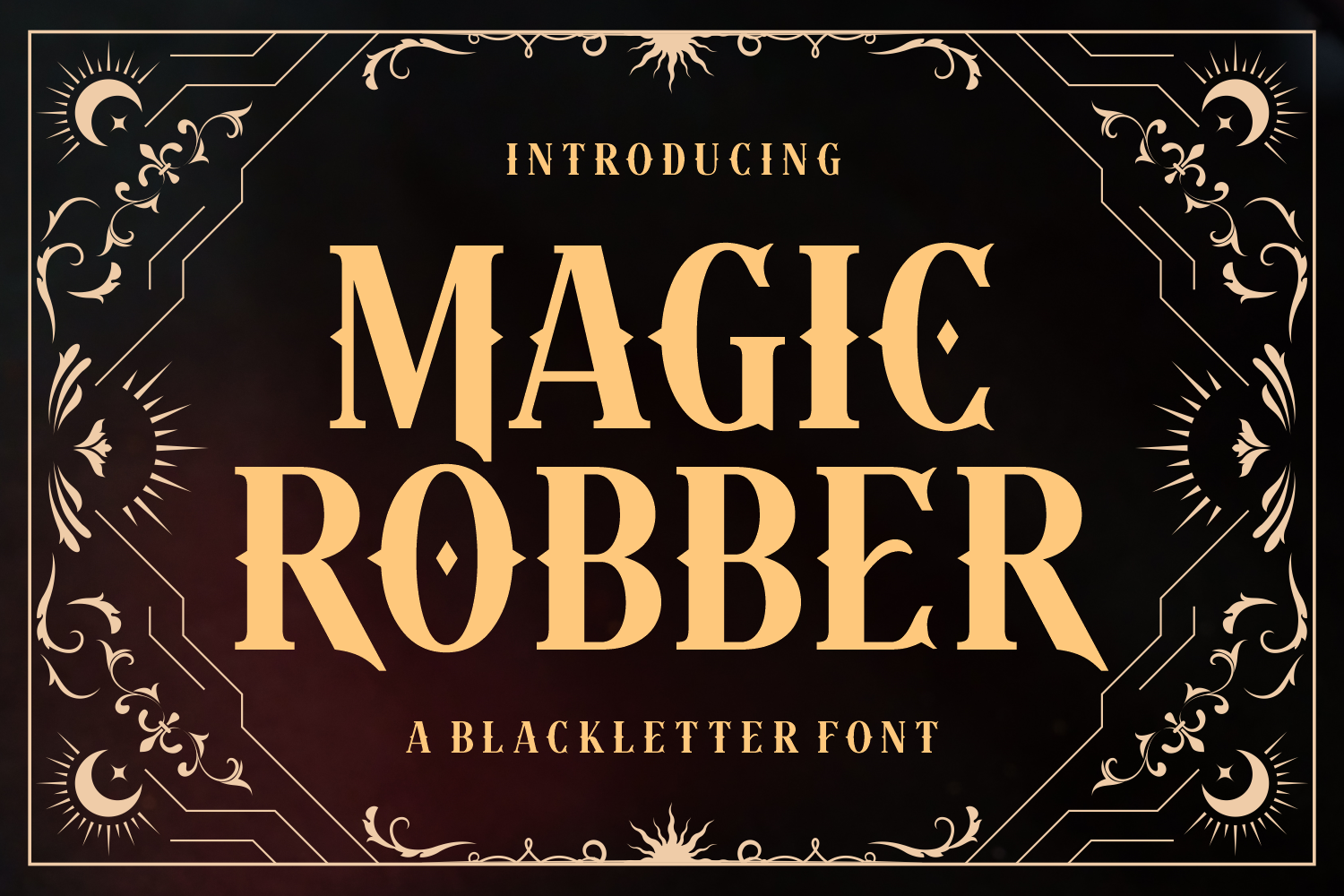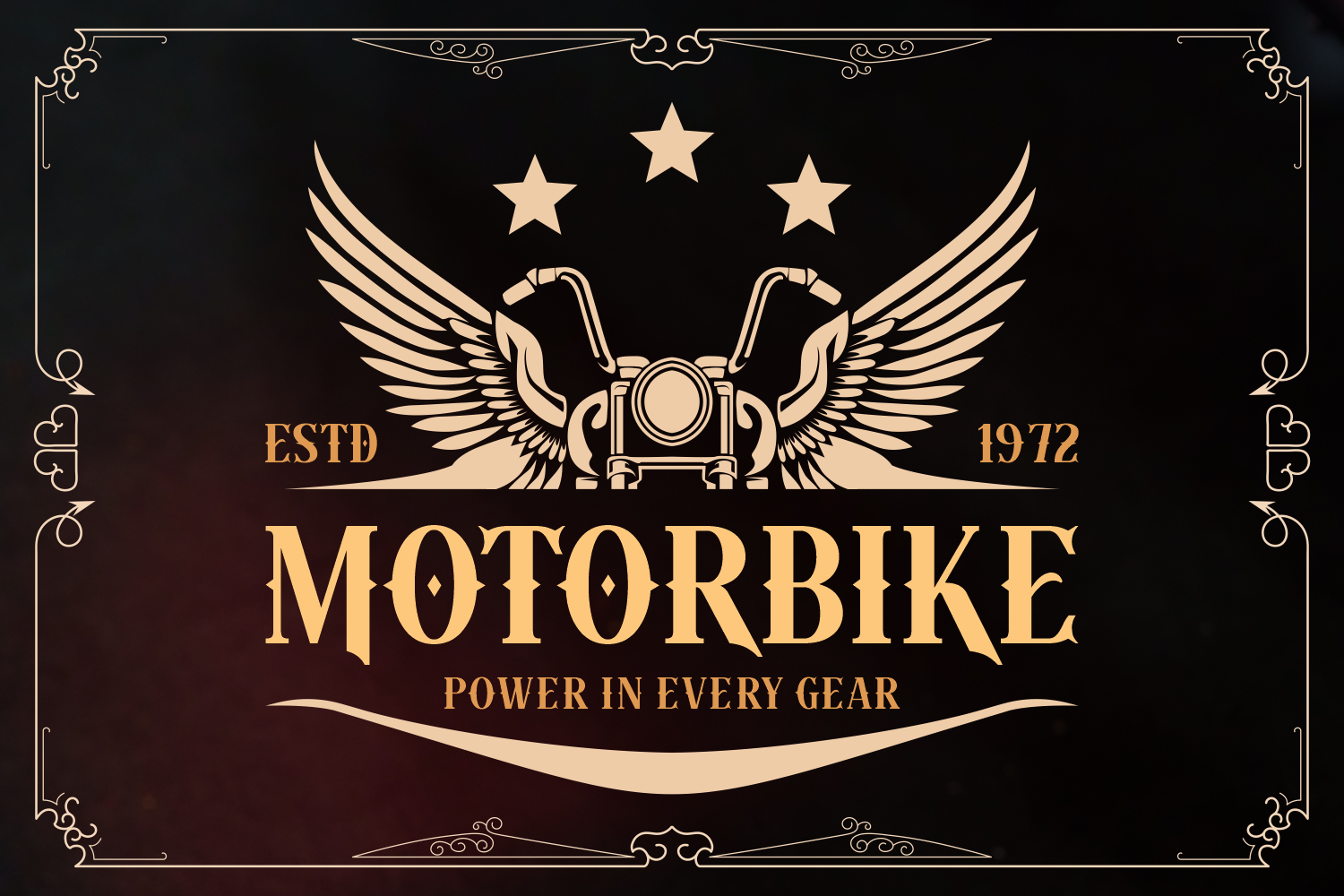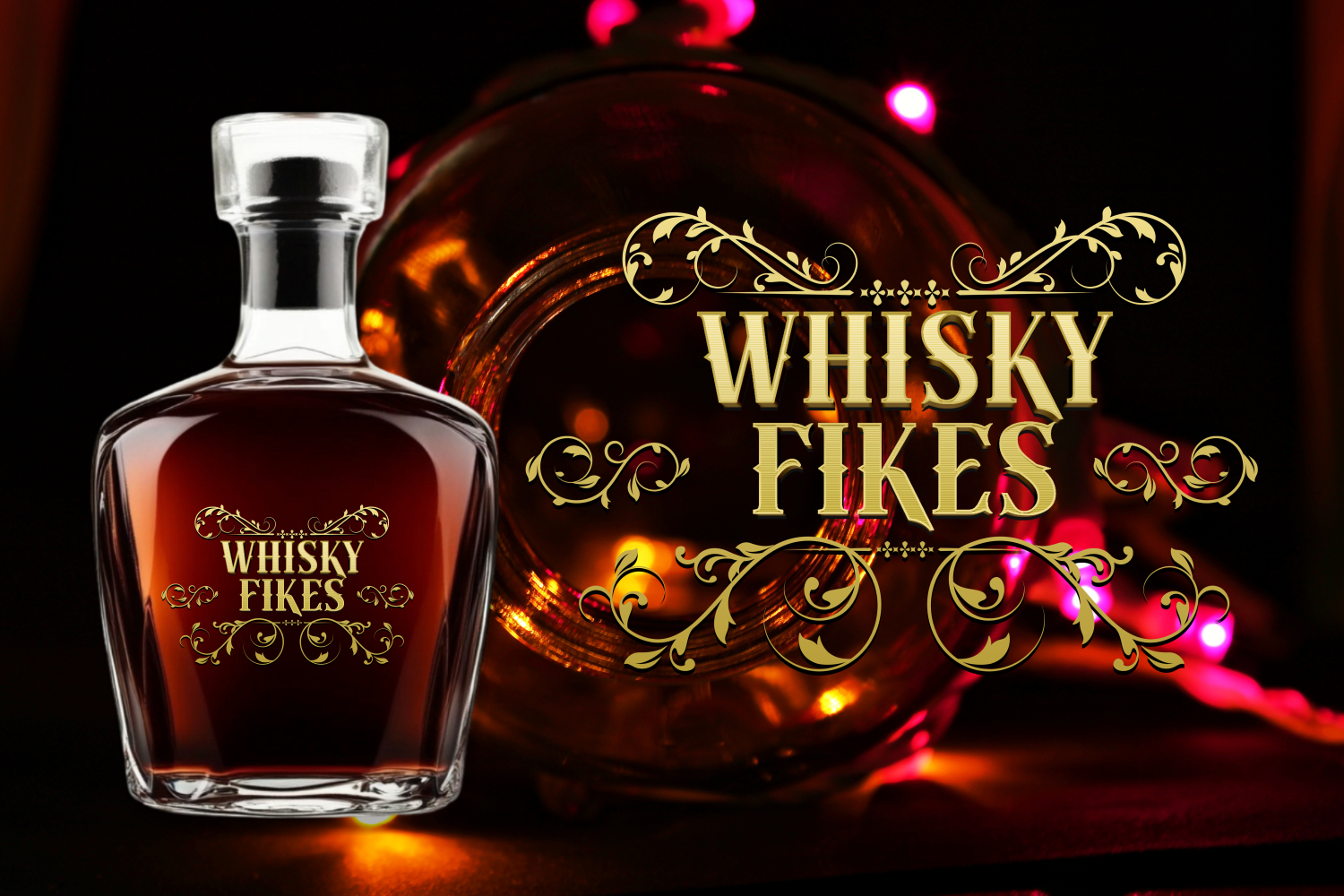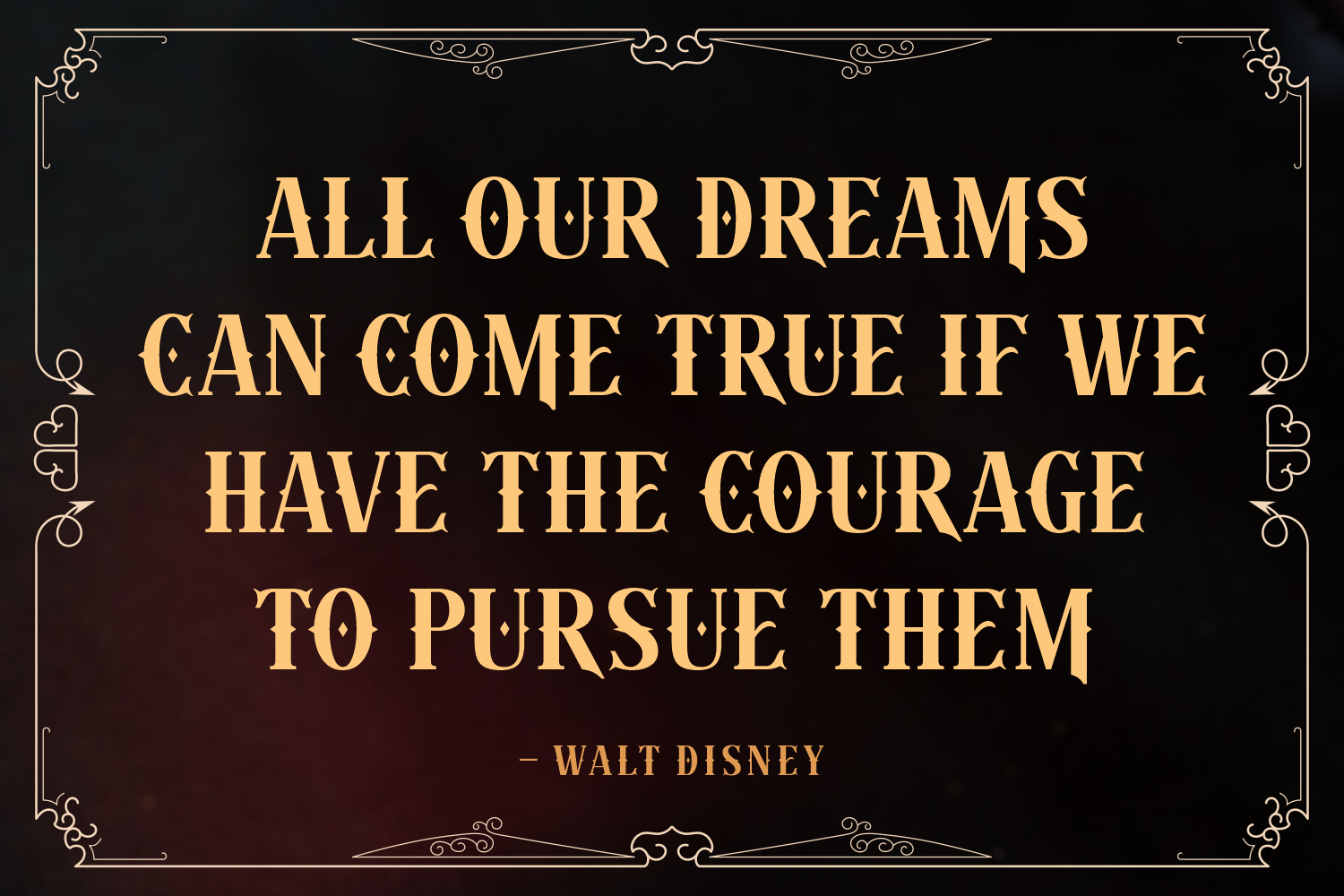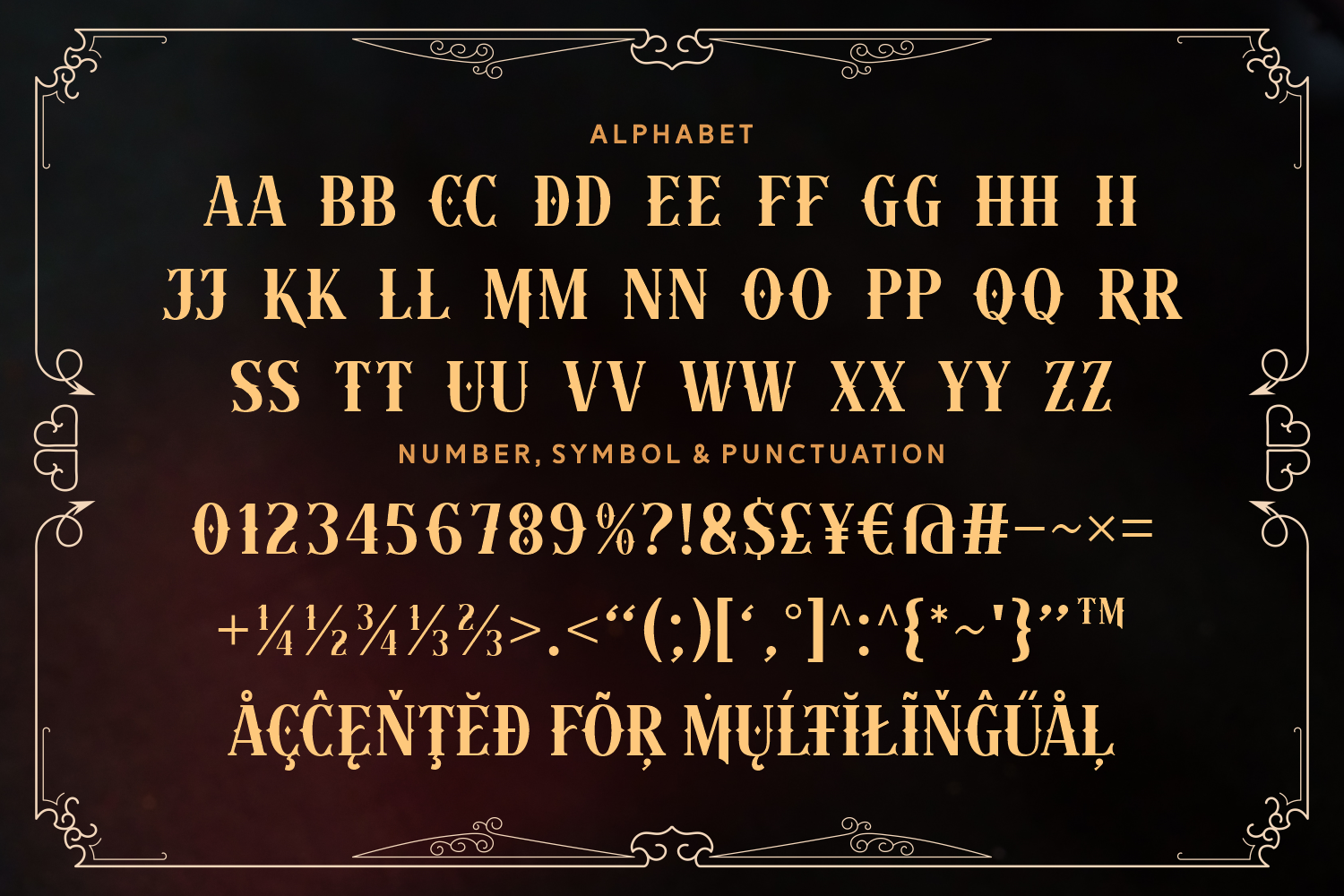
Magic Robber is an enchanting blackletter font that fuses gothic elegance with mystical flair. Its diamond-shaped accents and classic medieval form make it ideal for fantasy titles, tarot designs, or witchy branding that calls for a touch of the arcane.